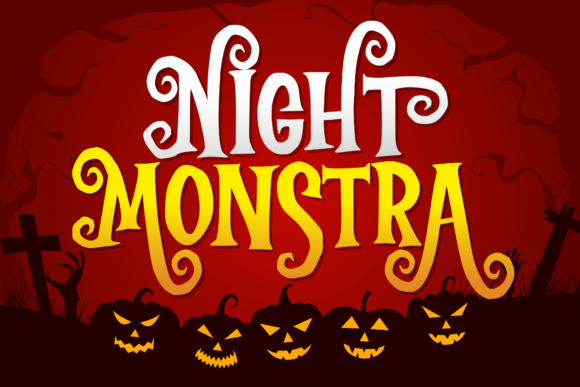
Welcome to the realm of Night Monstra, where darkness and beauty intertwine to create a captivating serif font that will leave you spellbound. Crafted by the talented hands of Holydie Studio, Night Monstra is a masterpiece inspired by the eerie charm of Halloween and the haunting allure of horror cinema.
Immerse yourself in a world where letters dance with a sinister grace, captivating your audience with their unnerving beauty. Whether you're designing spine-chilling movie posters, creating t-shirts that exude a sense of mystery, or adding an ominous touch to your Halloween decorations, Night Monstra is your perfect companion.
With its intricate details and bewitching curves, Night Monstra commands attention, leaving an indelible mark on the minds of all who encounter it. Its sharp edges and haunting glyphs evoke a sense of anticipation and suspense, perfectly capturing the essence of the macabre.
Unleash your creativity and let Night Monstra take you on a journey through the realm of darkness and delight. Embrace the power of this font to create designs that resonate with your audience, leaving them captivated and enthralled.
But wait, there's more to Night Monstra than meets the eye. This font is PUA encoded, granting you effortless access to a treasure trove of glyphs and swashes. Unleash your imagination and explore endless possibilities, crafting designs that are both visually stunning and deeply impactful.
With Night Monstra, you hold the key to unlocking a world of endless creative potential. Its haunting beauty and captivating charm will transform your designs into masterpieces that linger in the minds of your audience long after they've encountered them.